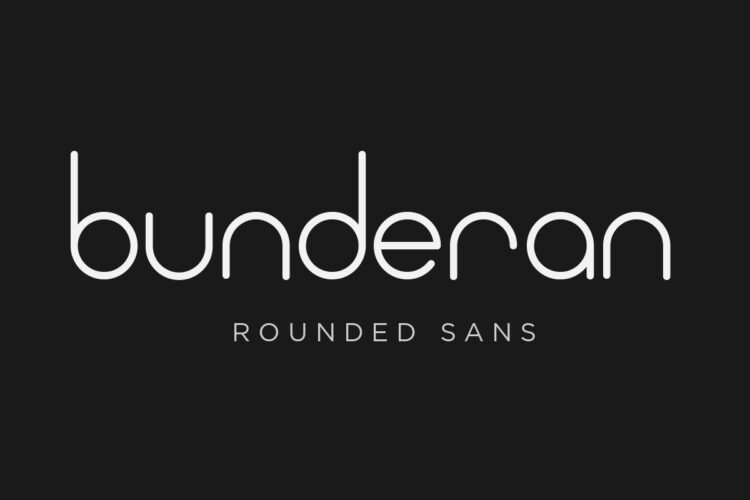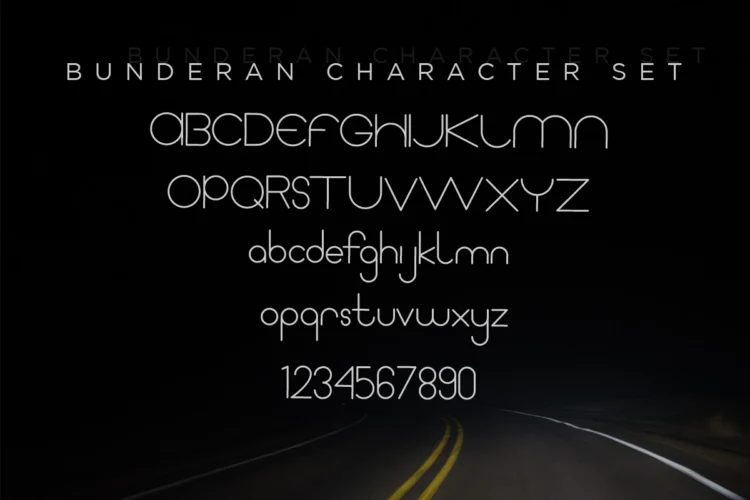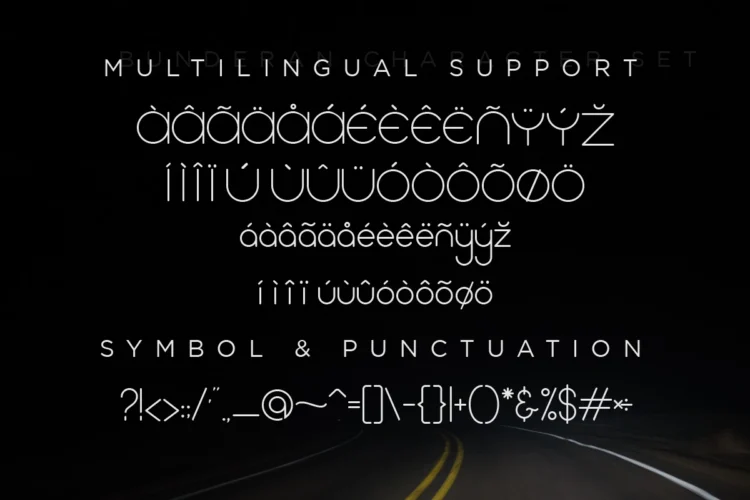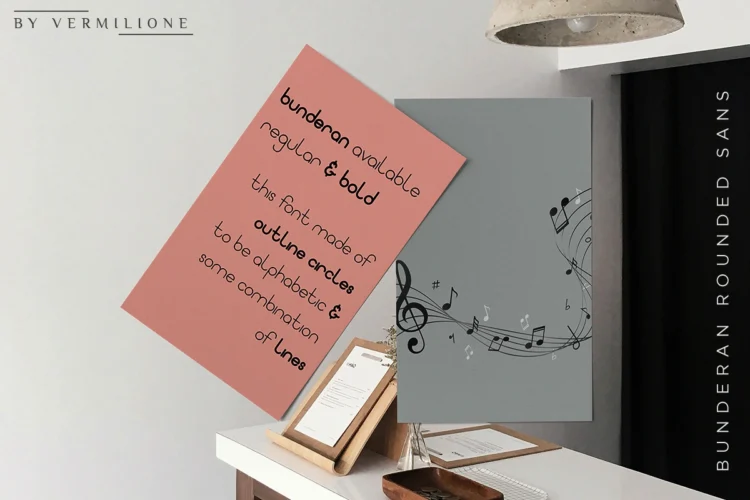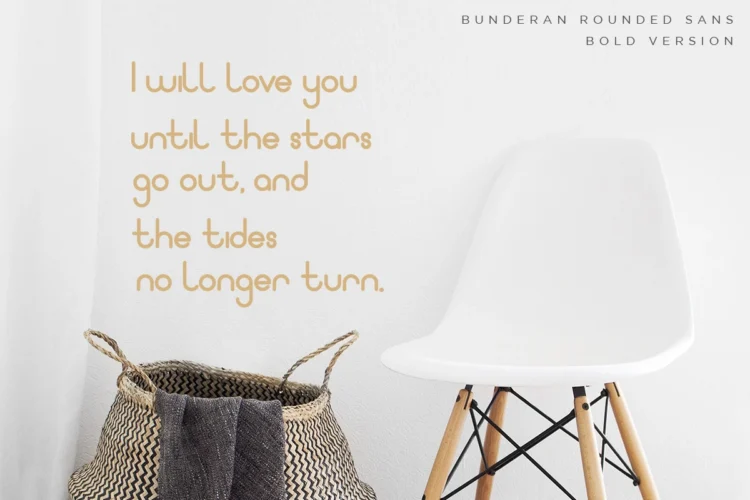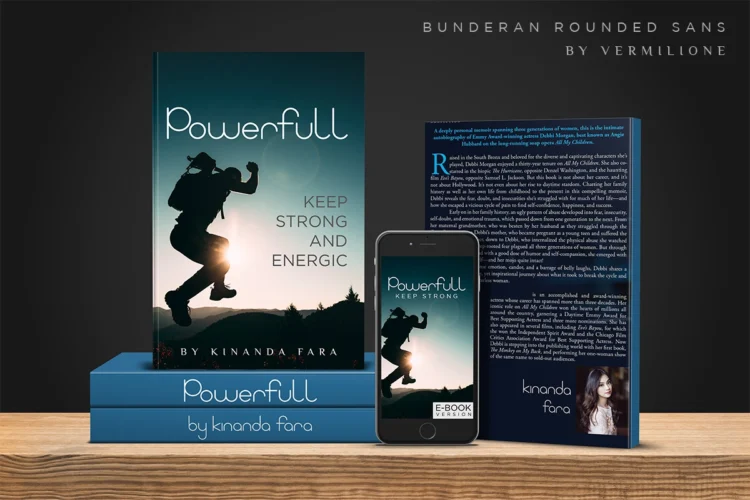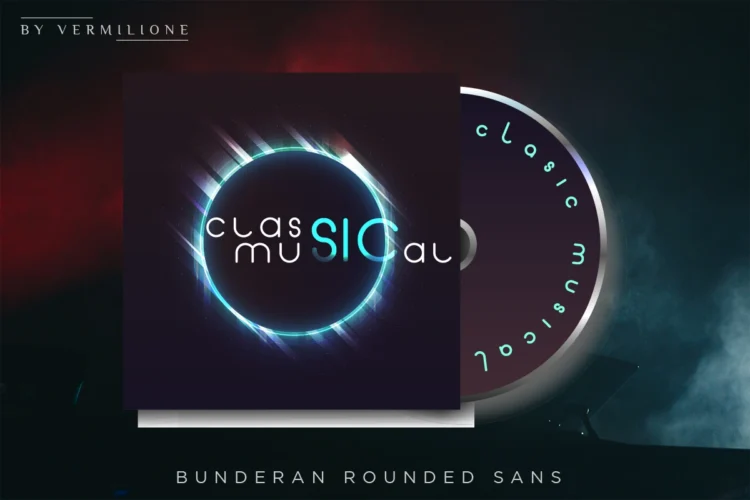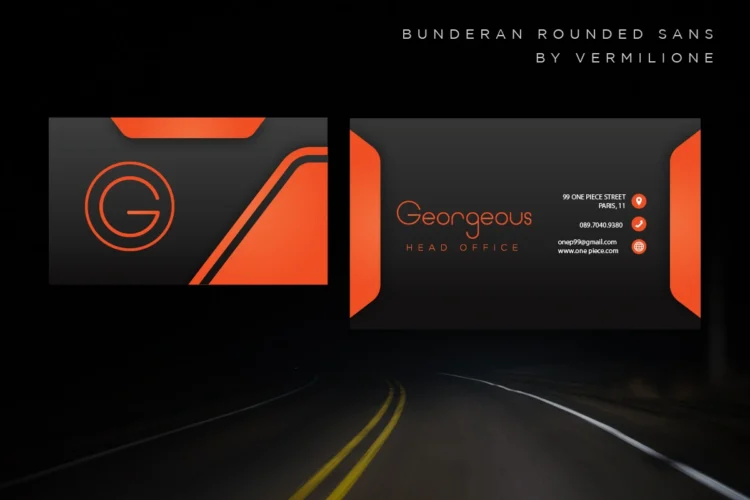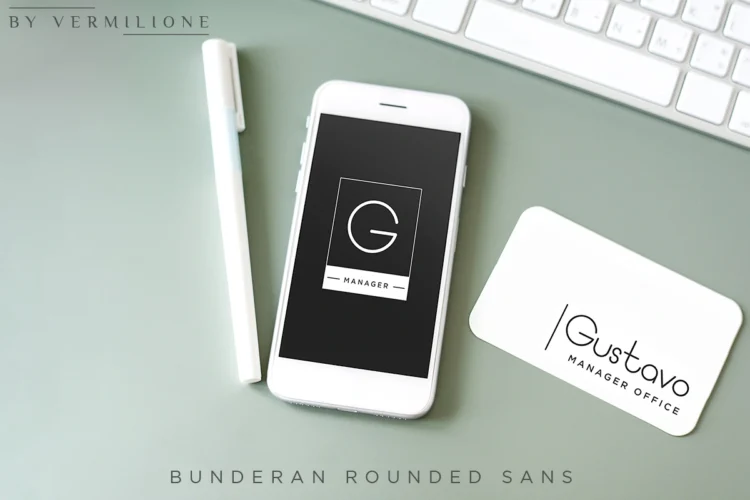
Bunderan
Bunderan is a simple sans serif typeface, with rounded edges in favour of a smooth and clean look. It is perfect for logo designs, titles or subtitles, brand, and small amounts of text. The font includes an uppercase alphabet, numbers, and common symbols, and multilingual support